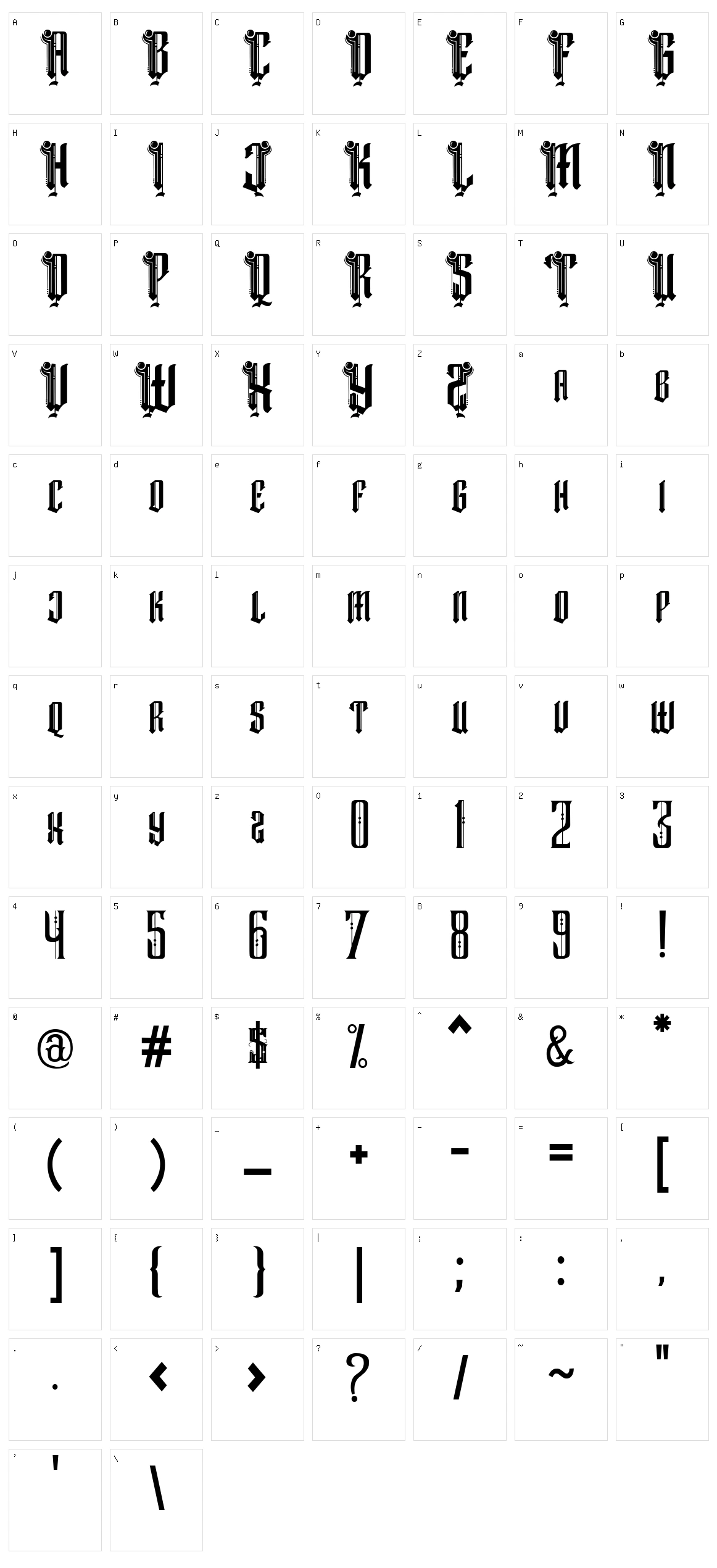
The free font Dark Magic is carefully designed by Typefactoryco, showcasing a thoughtful balance of creativity and usability and belongs to the Gothic font family. When you download the ZIP file, it contains only 287.35 KB of font files, making it lightweight and quick to download. Please review the license details below to understand permitted usage and distribution rights. If license information is not available, we recommend using this font for personal projects only or contacting the author directly for commercial usage permissions.